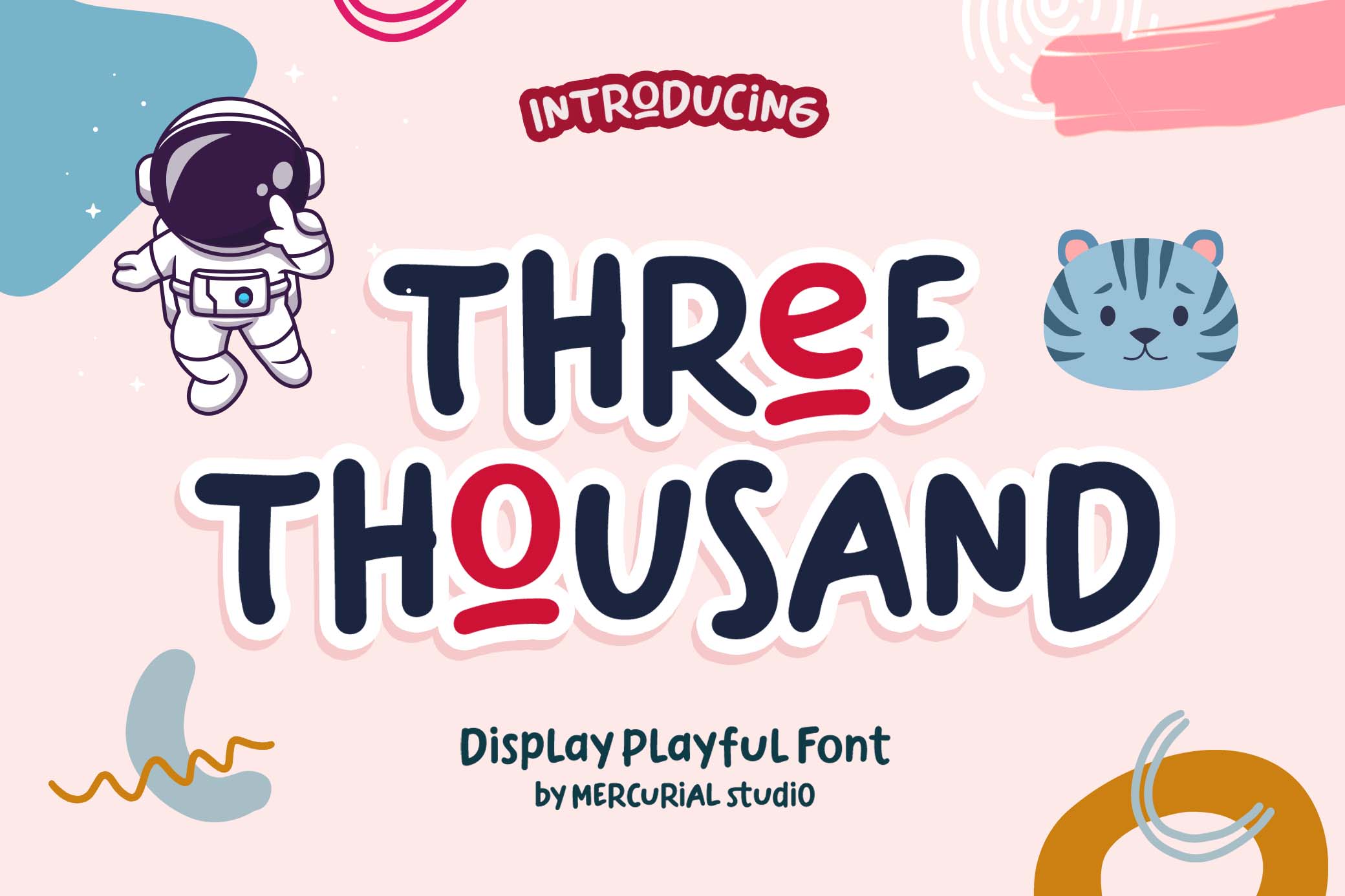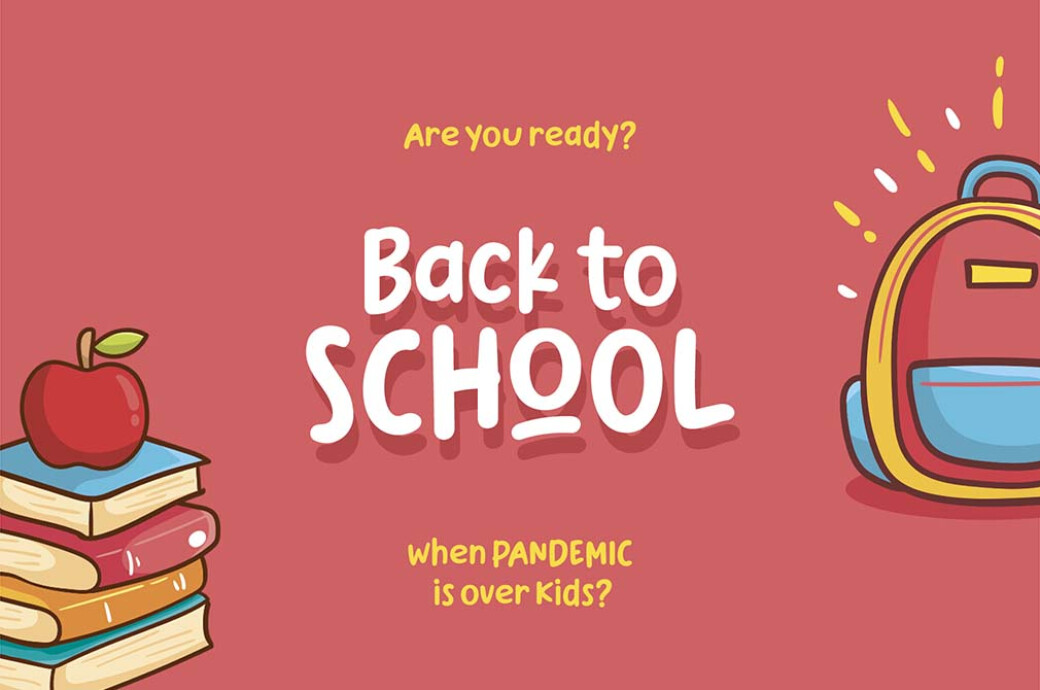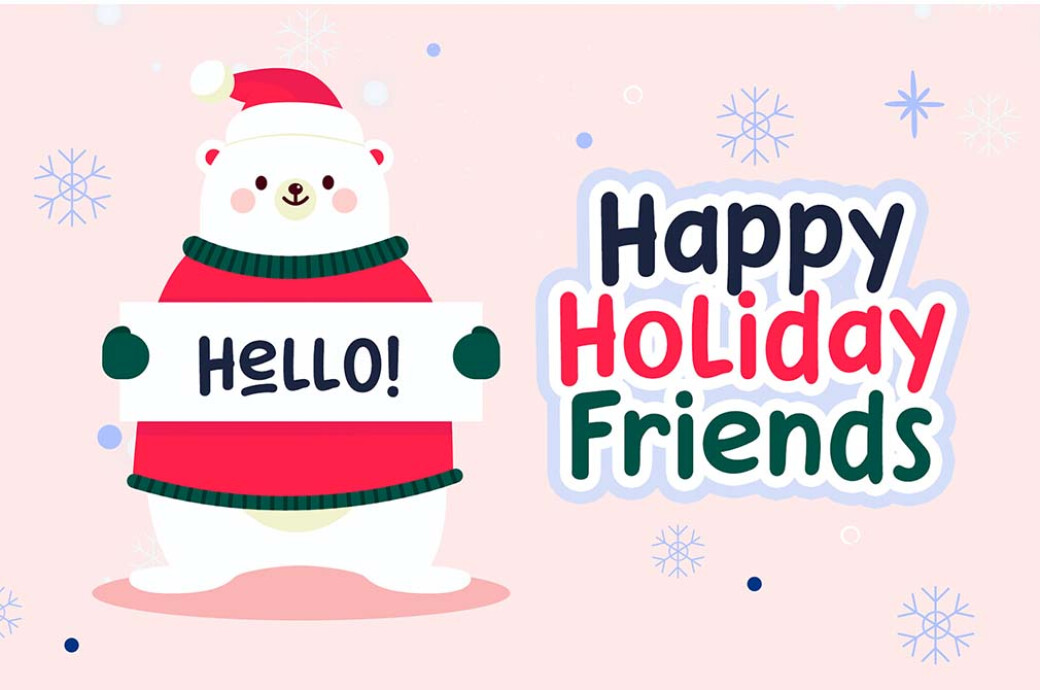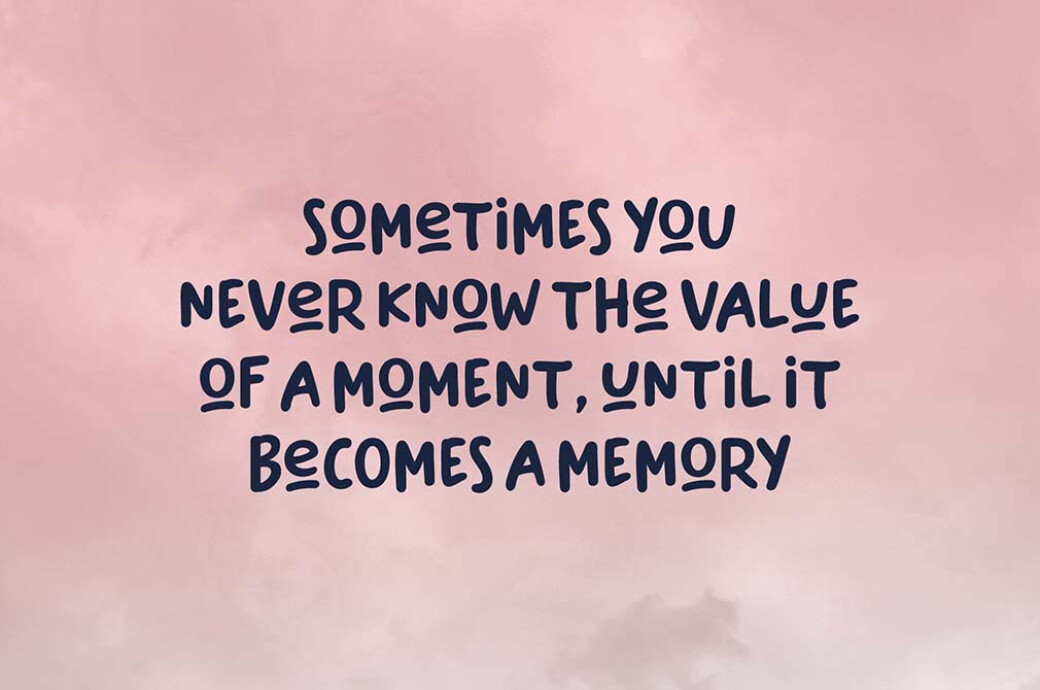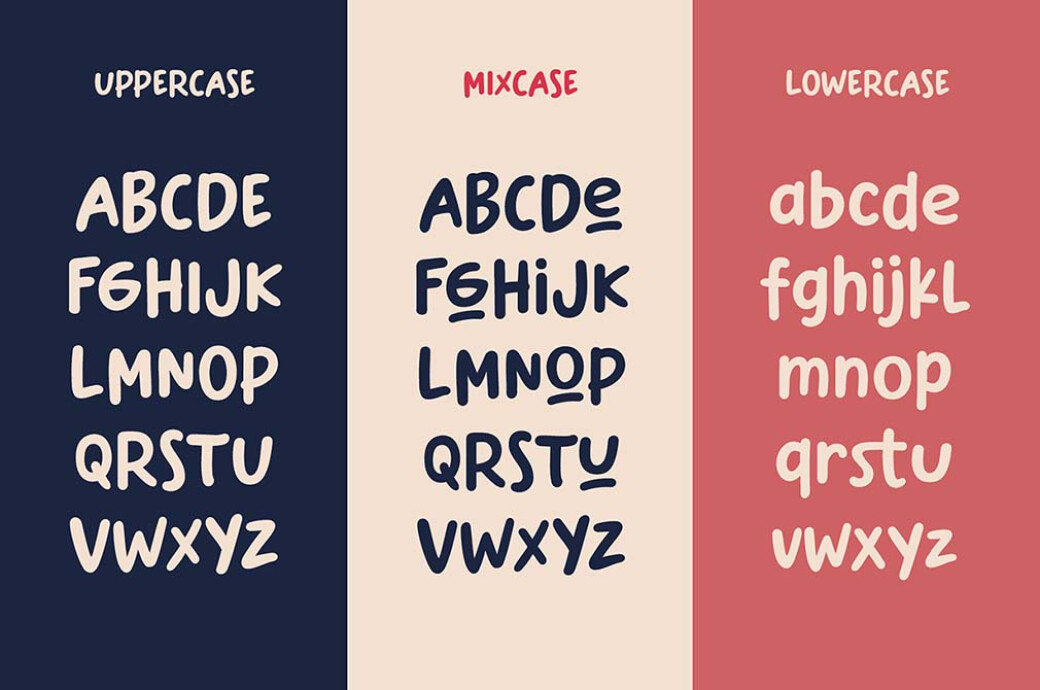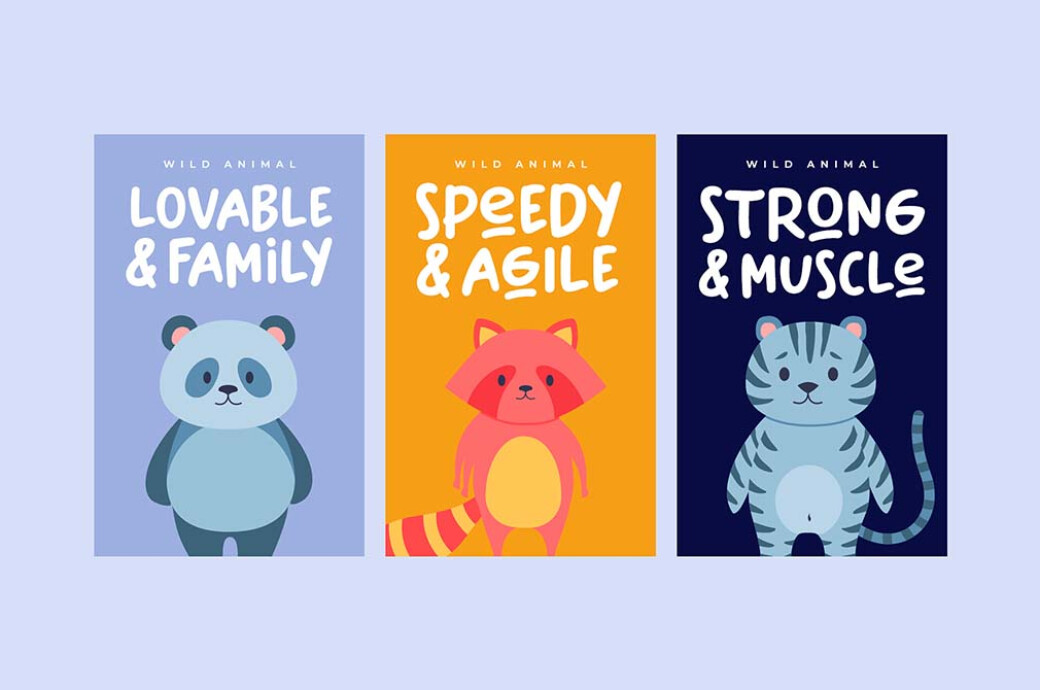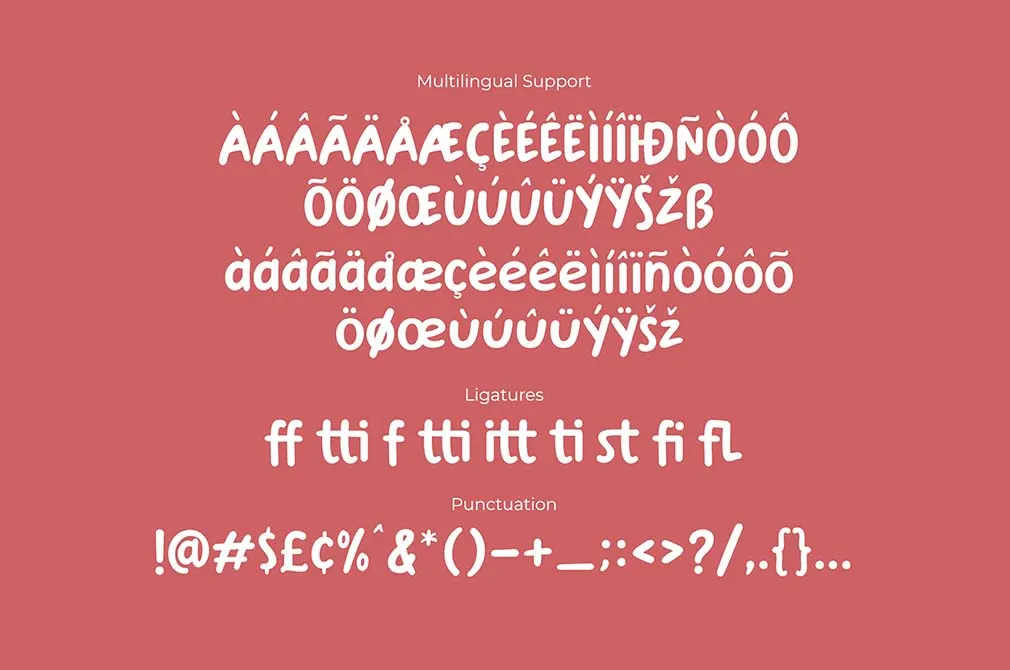
Three Thousand Font
Sometimes it gets tiring to be a responsible adult working on important projects. Let yourself go with this playful, quirky font and get a well-deserved rest from the daily routine!Childhood missing hours are open! If you are longing for your favorite chocolate bar in cute packaging or a book with a cover that made you read it over and over again when you were little, this playful font is exactly what you need. However, not only its cute style is exciting, but also the included features: ligatures, accented characters, and multilingual support are all provided to help you with an upcoming creative task.